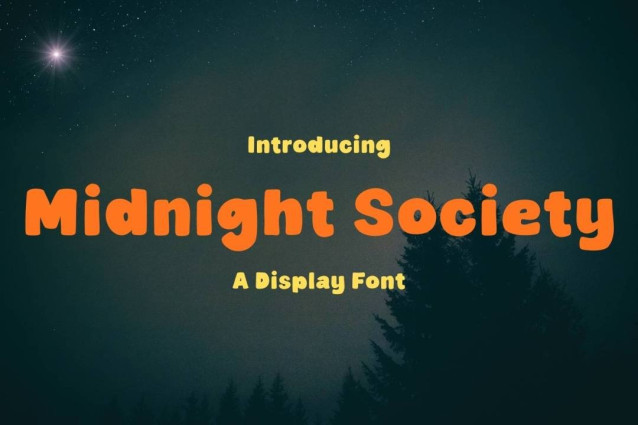
Midnight Society Font
Midnight Society Font is a simple and modern display font suitable for quotes, logos, headings, titles, and many more. Use it on any of your creative projects, and your designs will become outstanding!